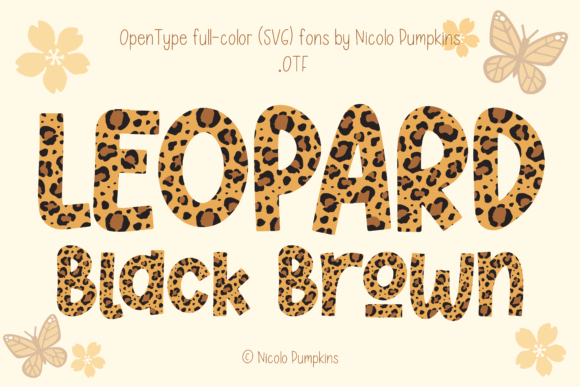
Introducing Leopard Black Brown Font: The Ultimate Chic and Friendly Color Font for Women’s Designs
Are you looking for a font that can add a touch of elegance and playfulness to your designs? Look no further than Leopard Black Brown Font! This stunning color font is perfect for women’s designs and can be used to create a wide range of products, from t-shirts and tote bags to wedding designs and logos. In this article, we’ll take a closer look at Leopard Black Brown Font, its features, and how you can use it to take your designs to the next level.
What is Leopard Black Brown Font?
Leopard Black Brown Font is a chic, cute, and friendly color font that is specifically designed for women’s designs. This font is an Opentype-SVG color font, which means it can be used in a variety of design software, including PhotoShop, Illustrator, Silhouette, and Inkscape.
One of the standout features of Leopard Black Brown Font is its unique and stylish design. The font features a beautiful blend of black and brown colors, which gives it a sophisticated and feminine look. The font is perfect for designs that require a touch of elegance and playfulness.
Endless Design Possibilities with Leopard Black Brown Font
Leopard Black Brown Font is incredibly versatile and can be used to create a wide range of products, including:
- T-shirts: Create stunning t-shirt designs that will make your customers stand out.
- Tote bags: Add a touch of elegance to tote bags with Leopard Black Brown Font.
- Hats: Design stylish hats that will make a statement.
- Stickers: Create eye-catching stickers that will grab attention.
- Wedding designs: Use Leopard Black Brown Font to create beautiful wedding designs, such as invitations and decorations.
- Logos: Create professional logos that will make your brand stand out.
- Cards: Design stunning greeting cards for any occasion.
- Quotes: Add a touch of inspiration to your designs with Leopard Black Brown Font.
These are just a few examples of the many design possibilities with Leopard Black Brown Font. The font is perfect for any creative project that requires a touch of elegance and playfulness.
Tips and Tricks for Using Leopard Black Brown Font
Here are a few tips and tricks for getting the most out of Leopard Black Brown Font:
- Play with color combinations: The font features a beautiful blend of black and brown colors, but you can also experiment with different color combinations to create unique effects.
- Use it for branding: Leopard Black Brown Font is perfect for branding projects, such as logos and business cards.
- Make it personal: Add a personal touch to your designs by using Leopard Black Brown Font to create custom quotes, phrases, or names.
Leopard Black Brown Font is a stunning color font that is perfect for women’s designs. With its unique and stylish design, this font can add a touch of elegance and playfulness to any creative project. Whether you’re designing t-shirts, tote bags, or logos, Leopard Black Brown Font is sure to make your designs stand out.